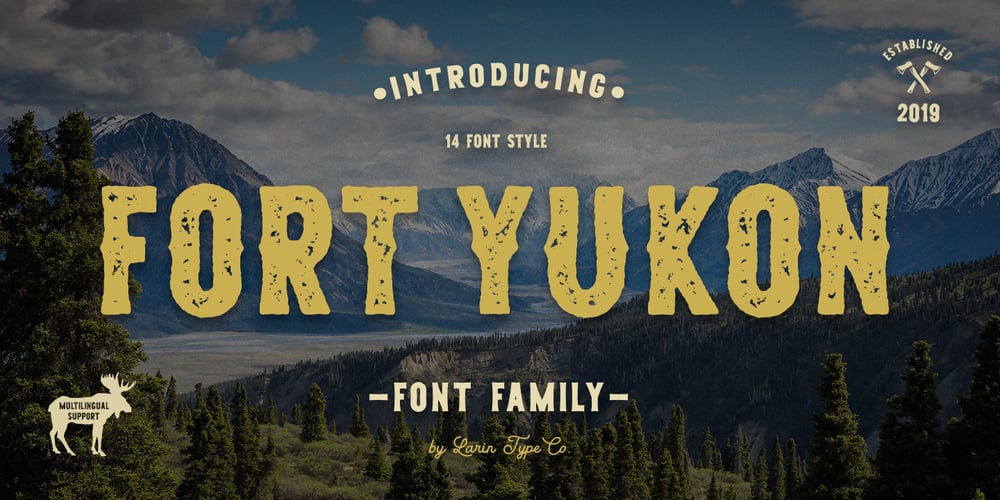
Fort Yukon Font Family was designed by Pavel Larin and published by Larin Type Co. Fort Yukon contains 14 styles and family package options. Inspired by wildlife, Fort Yukon is a bold and authentic vintage family font. This will inspire any design project that needs a vintage style. This font family is composed of 14 styles which perfectly complement each other. You can use them to create a logo or use for your business, branding, t-shirts, book covers, stationery, marketing, blogs, magazines and more.